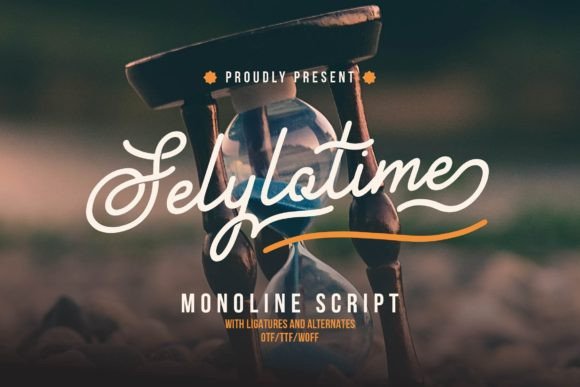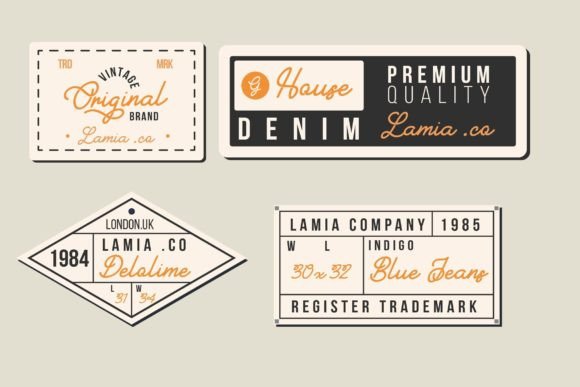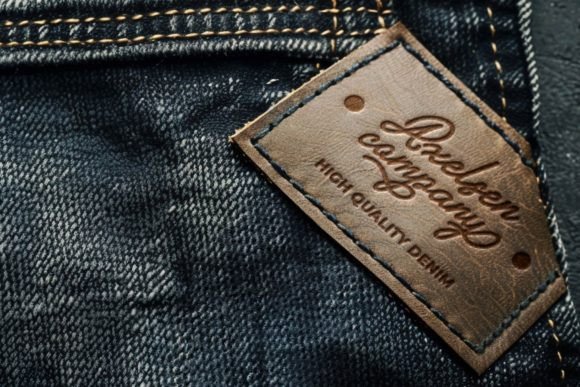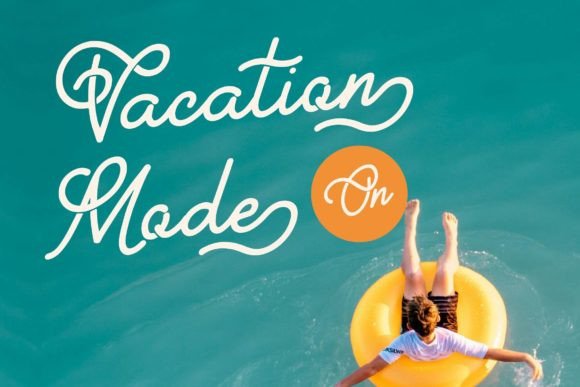
Selylotime Font: Elegant Monoline Script for Vintage Logo Design
About the Selylotime Font
The Selylotime Font is here to transform your projects with its distinctive character and style. Selylotime is a stylish and elegant script font. It has a smooth, flowing design that looks like it was written with a single, continuous line. Perfect for invitations, logos, and other creative projects where you want a touch of sophistication and charm.
Selylotime Font Usage Examples
Selylotime Font Example